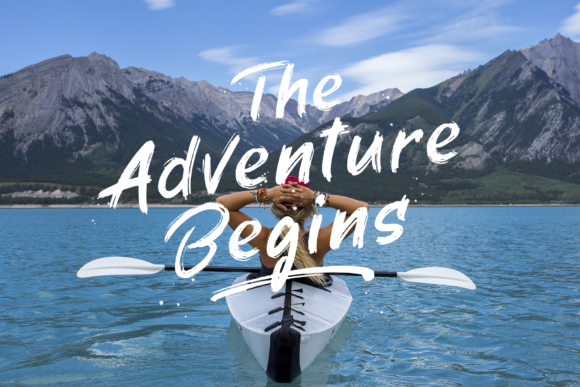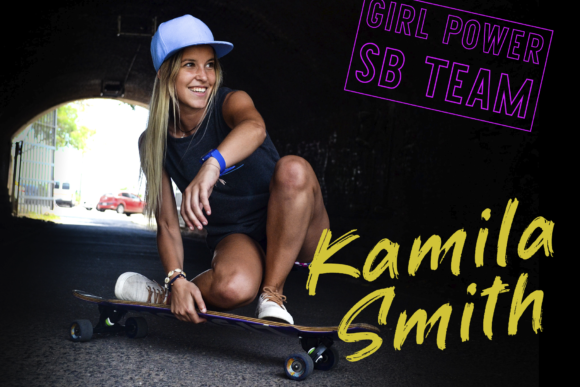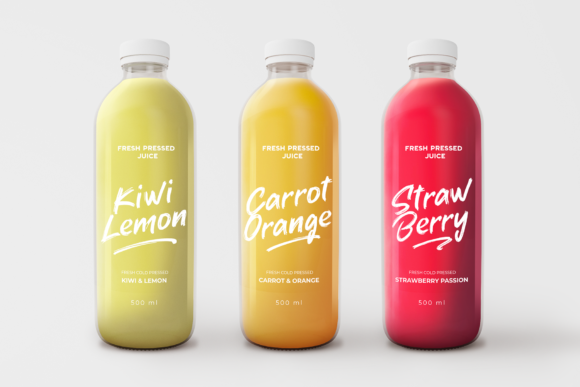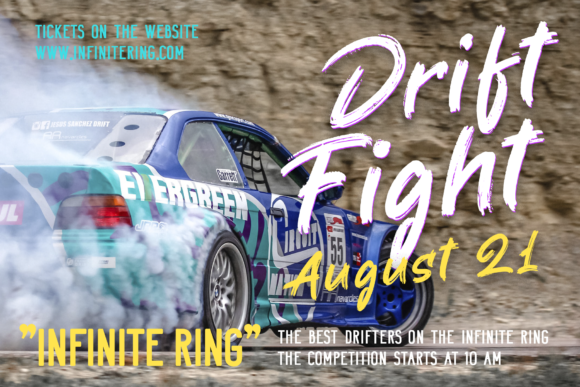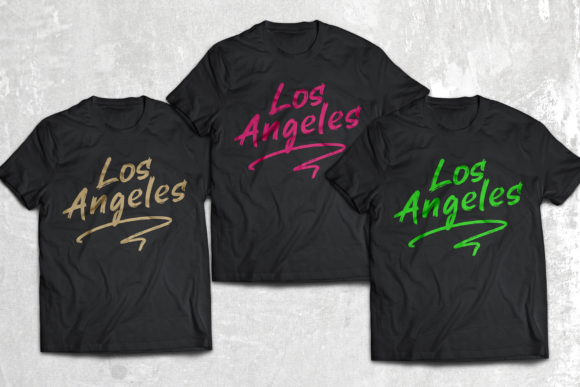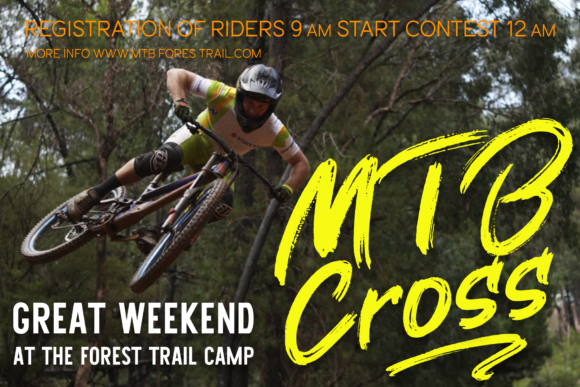
I still remember the frustration of working on a project, hours spent searching for the perfect font, only to end up with something that just didn’t feel right. It was as if the font was trying to dictate the design, rather than complementing it. One such moment led me to discover the Above Ground font, a cool, relaxed, and brushed handwritten font that has since become a staple in my design toolkit.
Above Ground is more than just a font; it’s a design companion that brings a laid-back vibe to any project. Here’s what I love about it:
- ✨ PUA Encoding: This font is PUA encoded, making it incredibly easy to access all the glyphs and swashes. No more tedious searching for the perfect character!
- ✅ Versatility: Above Ground is suitable for a wide range of designs, from t-shirts and sportswear to logos, advertisements, and clothing. Its relaxed feel makes it perfect for projects that need a casual touch.
- 💫 Aesthetic Appeal: The brushed handwritten style gives it a unique, organic look that’s hard to find in digital fonts.
- ⚠️ Limited Formality: Given its casual nature, Above Ground might not be the best fit for projects requiring a formal or traditional look.
- 🤔 Overuse of Swashes: While the swashes are beautiful, using too many can make the text hard to read. It’s all about balance!
| Is Above Ground suitable for professional branding? | Absolutely! Its unique style can add a distinctive touch to professional branding, especially for businesses aiming for a casual or creative image. |
| Does Above Ground support OpenType features? | Yes, Above Ground supports OpenType features, including glyphs and swashes, making it versatile for various design needs. |
| Is Above Ground easy to read? | Above Ground is designed to be legible, but like any font, readability can depend on the context and how it’s used. It’s best suited for medium to large sizes. |
Above Ground is more than just a font; it’s a design tool that brings a unique, relaxed vibe to any project. With its PUA encoding, versatility, and aesthetic appeal, it’s no wonder it’s become a favorite among designers and creative hobbyists alike. Whether you’re working on a casual t-shirt design or a professional logo, Above Ground is definitely worth considering.